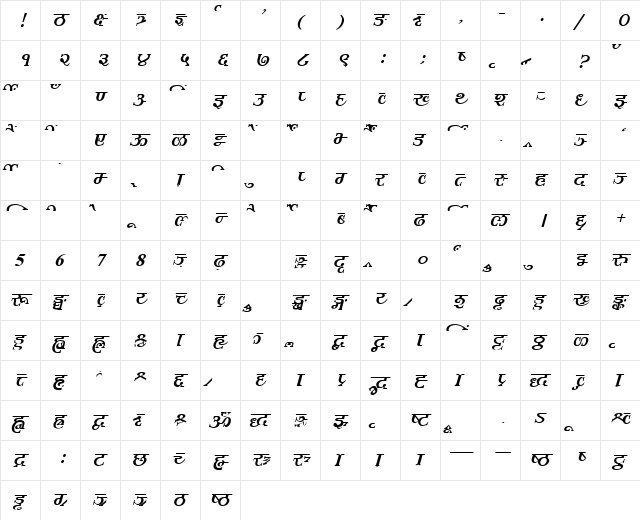
AkrutiDevArjun BoldItalic Font Preview
Design Context for AkrutiDevArjun Typeface
AkrutiDevArjun takes a measured approach to typography — its balanced proportions and neutral character make it a reliable workhorse for both digital and print work. Its italic angle brings a sense of urgency and motion to the letterforms. The heavy weight commands attention and anchors typographic hierarchies.